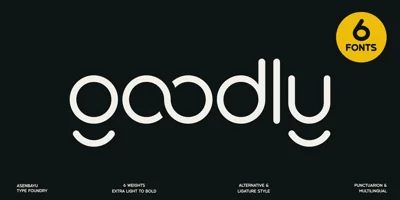
Goodly Font
Goodly Font is perfect for wellness center branding, positive lifestyle campaigns, charitable organization materials, community service promotions, mindfulness app interfaces, ethical brand communications, social good initiatives, volunteer program graphics, mental health awareness designs, inspirational quote displays, and any project that requires wholesome character with uplifting positivity appeal.
What makes Goodly Font exciting is its heartwarming ability to convey genuine kindness and positive values through carefully balanced letterforms that embody goodness, compassion, and social responsibility. This uplifting typeface features friendly proportions with optimistic characteristics that inspire trust and convey authentic care for community wellbeing. The font's goodly character adds instant trustworthiness and positive appeal to any design, making it perfect for organizations dedicated to making the world a better place through genuine service and social impact.
Goodly Font comes in multiple font families including Regular, Bold, Light, Condensed, Gentle, and Community variations, providing designers with comprehensive options to create positive compositions and achieve the perfect wellness aesthetic for socially-conscious design projects.
Whether you're developing social impact branding, creating community wellness materials, or designing positive change campaigns, Goodly Font offers the perfect solution for projects demanding authentic goodness character and social responsibility sophistication. This wholesome typeface excels in display applications where positive presence is essential, ensuring your designs communicate genuine care and community values. The friendly character and positive styling of Goodly Font make it an indispensable tool for designers who prioritize social good, community wellness, and positive impact messaging in their typographic selections.